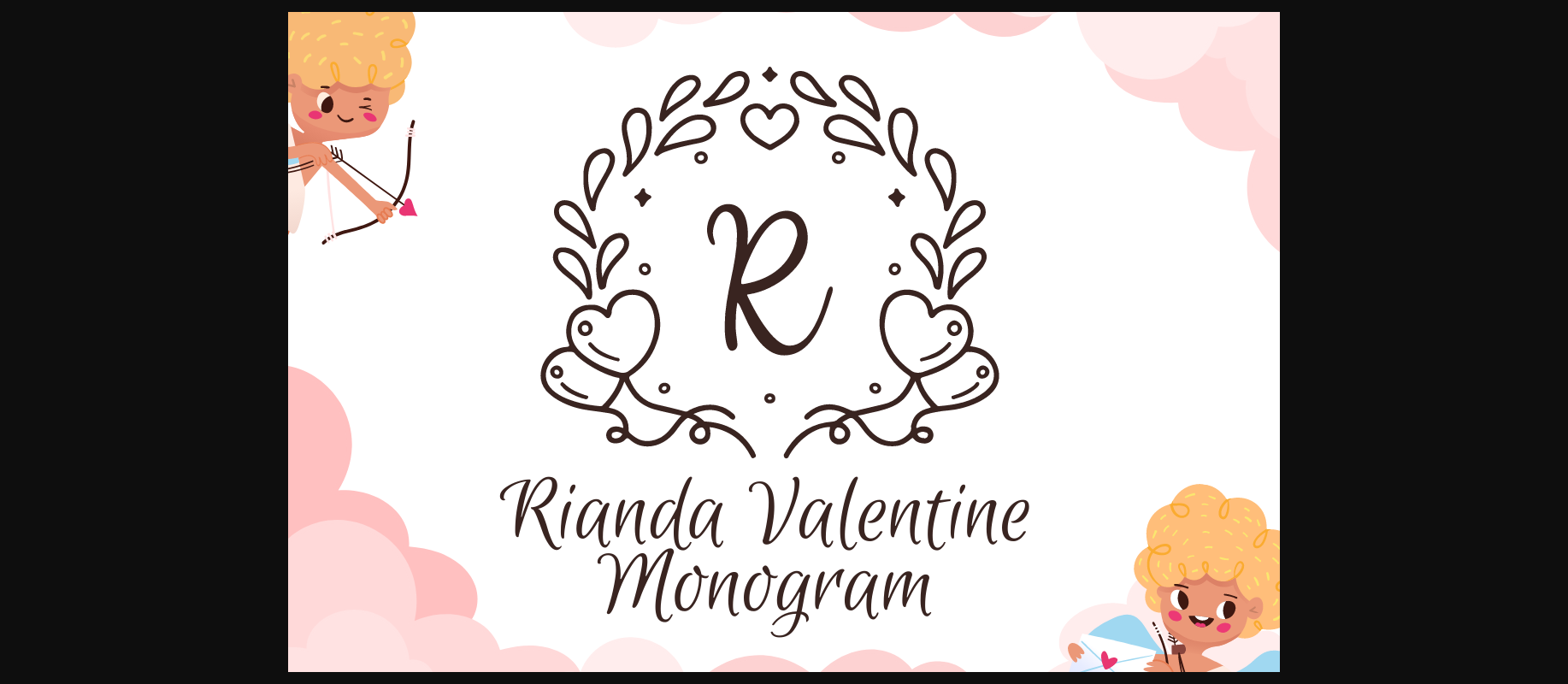
About Rianda Valentine Monogram Font
Rianda Valentine Monogram is a lovely decorative monogram font. Fall in love with it and use it to create lovely designs for special occasions, logos, branding, social media posts, wedding invitations, and more.